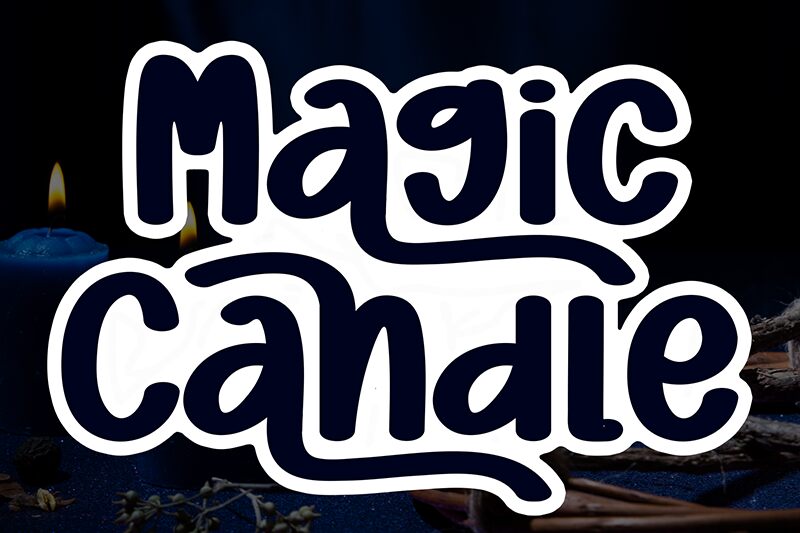
Magic Candle
Magic Candle font by Scratchones is a whimsical, retro-inspired brush font. This fun and artistic font adopts a friendly, casual tone with playful shapes and free-flowing lines. Its uneven baseline establishes each character’s unique personality for more amusing displays.